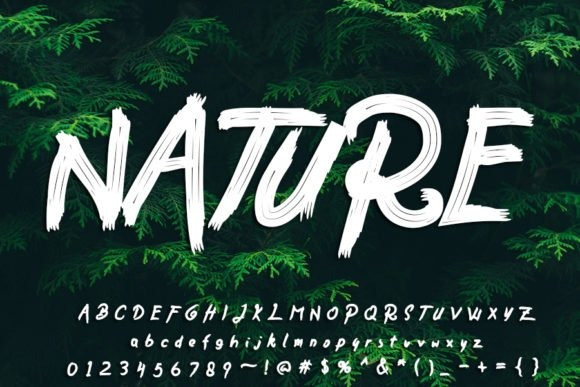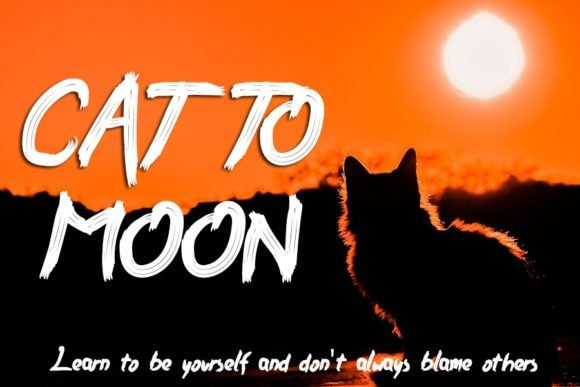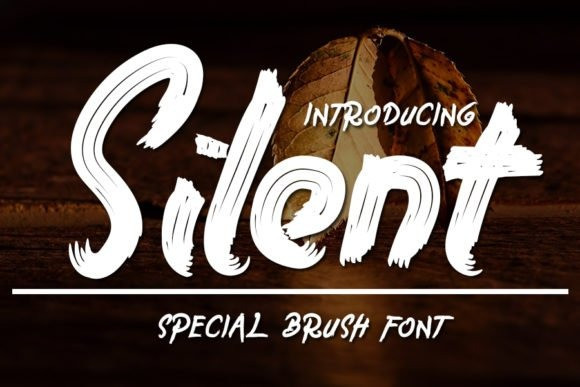
Gorasc Display Font
Gorasc is a modern, trendy and cool display font. This font is ideal for writing web designs, business cards, or pretty much anything else that requires a unique touch.